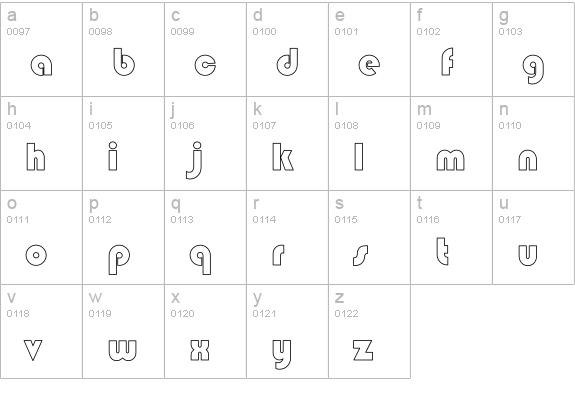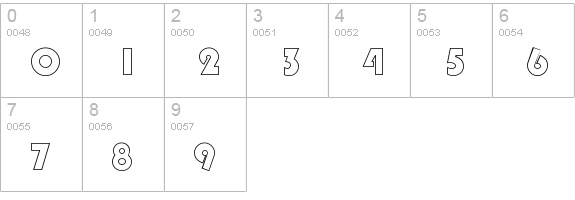
Circle Black Hollow Font Details
Circle Black Hollow is a maximum-weight, dramatic variant in the Circle typeface family \xE2\x80\x94 well suited to maximum-impact headlines, posters, and packaging.
Circle Black Hollow font is a stylish and modern typeface that features clean lines and a bold appearance. This font is perfect for creating eye-catching designs that demand attention. With its circular shapes and hollow design, Circle Black Hollow offers a unique and contemporary look that is sure to make your projects stand out. Best of all, Circle Black Hollow font is available for free download at FontsMarket.com. Whether you're designing a logo, poster, or website, this font is a versatile choice that will add a touch of sophistication to any project. Don't miss out on the opportunity to enhance your designs with this sleek and trendy font - download Circle Black Hollow today and take your work to the next level!